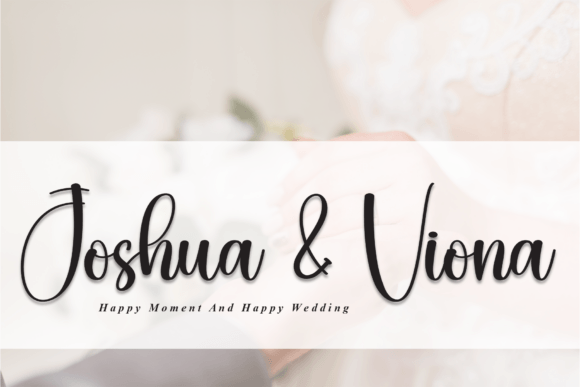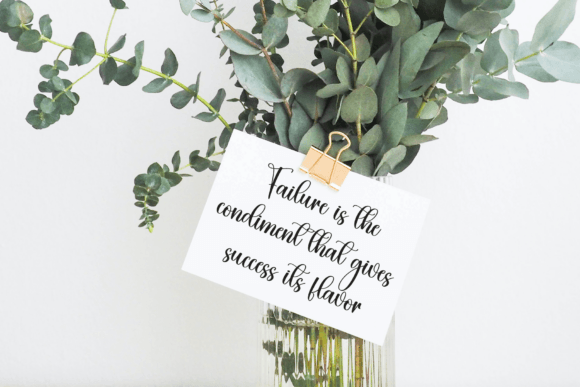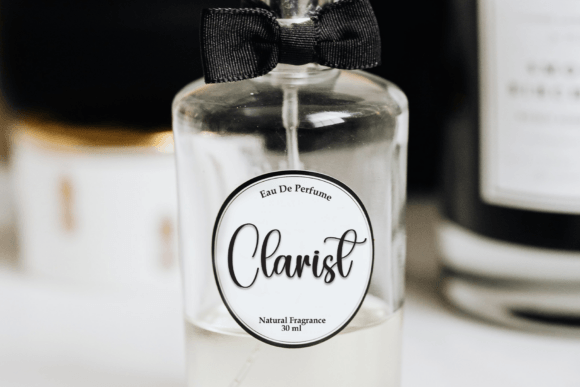
Introduction to Beautica Font
As designers, we’ve all been there – staring at a blank canvas, trying to bring our creative vision to life. The perfect font can make all the difference. Imagine the joy of crafting the perfect wedding invitation, or the satisfaction of seeing a beautifully designed business card come to life. That’s where the Beautica Font comes in – a stunning script font that adds a touch of elegance to any design.
With its high-quality design and transparent background, the Beautica Font is the perfect resource for any creative project. Whether you’re working on a free download or a paid design, this font is sure to impress. And the best part? It’s a free download, making it accessible to designers of all levels.
For designers, the Beautica Font is a valuable asset – a reliable go-to for adding a handwritten touch to any design. Its versatility makes it perfect for everything from greeting cards to logos, and its high-quality design ensures that it will always look stunning.
Key Features of Beautica Font
- High-quality, elegant design perfect for various creative projects, including wedding invitations, branding materials, and more.
- Features a transparent background, allowing for seamless integration with any design element or image.
- Includes a wide range of characters, including uppercase and lowercase letters, numbers, and punctuation marks, making it suitable for various design needs.
- Supports high-resolution designs, ideal for printing or using in digital applications with high pixel density.
- Designed to be versatile and stylish, making it an excellent addition to any design resource, from logos to typography-based designs.
- Comes in a single font weight, providing a clean and sophisticated look that can be used in a variety of creative contexts.
Honest Review: Beautica Font
I recently had the chance to work with the Beautica Font, and I’m excited to share my thoughts on this design resource. The Beautica Font is a beautiful, high-quality font that I was able to download for free, which is always a plus when working on a creative project.
Here are some things that work well with the Beautica Font:
- ✨ Elegant and modern design that’s perfect for a variety of projects, from logos to packaging.
- ✨ High-quality graphics that look great on both light and dark backgrounds.
- ✨ A transparent background option that makes it easy to customize and combine with other design elements.
While the Beautica Font is a great addition to any design library, there are a few limitations to keep in mind:
- ⚠️ Limited font styles and variations, which may limit its versatility in certain projects.
- ⚠️ May not be suitable for projects that require a lot of bold, attention-grabbing text.
Overall, I was impressed with the Beautica Font and would recommend it to anyone looking for a high-quality, free download to add some elegance to their creative project.
Tips for Getting the Most Out of Beautica Font
Use Beautica Font for headings and titles to add a touch of elegance to your design. You can also use it for body text to create a cohesive look. Experiment with different font sizes and styles to create visual interest.
Beautica Font is perfect for creative projects such as wedding invitations, business cards, and social media graphics. Its high quality and transparent background make it ideal for designs that require a professional look.